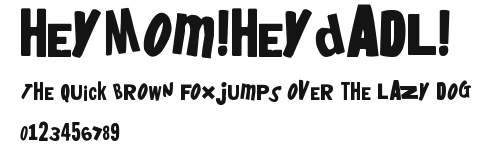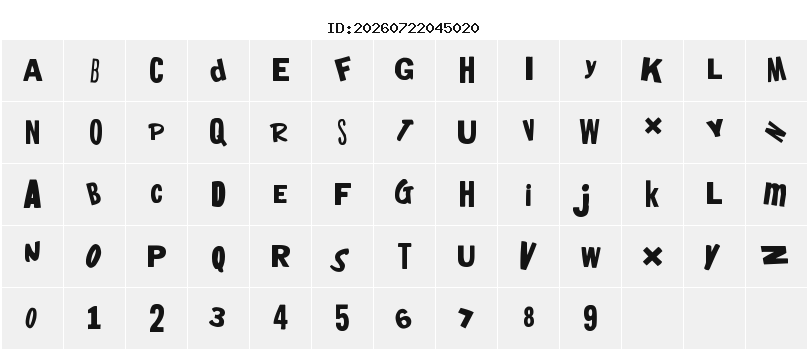
heyMom!heyDadl! Preview
• Font Name: heyMom!heyDadl!
• Font ID: heyMom!heyDadl!:Version 1.00
• Full Font Name: heyMom!heyDadl!
• Version: Version 1.00 May 13, 2009, initial release
• PostScript Name: heyMom!heyDadl!
About heyMom!heyDadl!.ttf
heyMom!heyDadl!.ttf is a modern, elegant sans-serif font designed for ultimate readability and visual harmony. Perfect for branding, headlines, web design, and print materials.